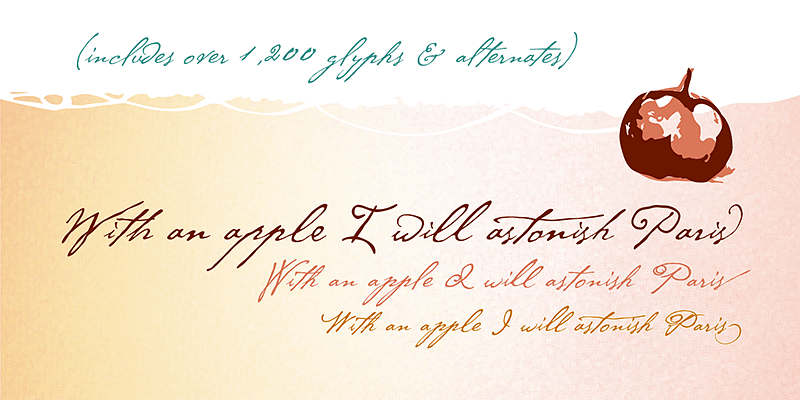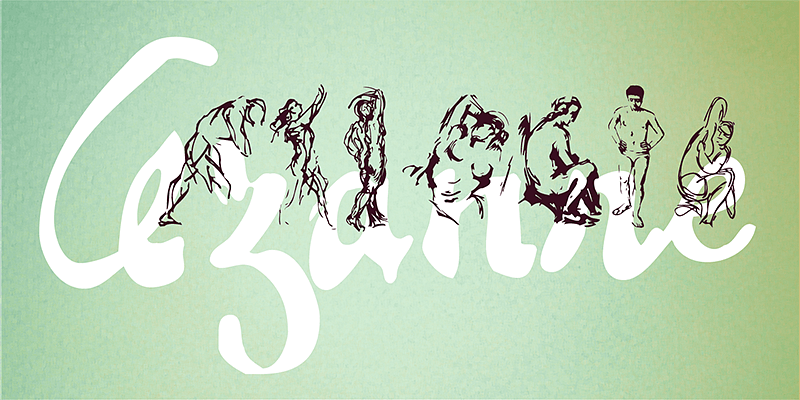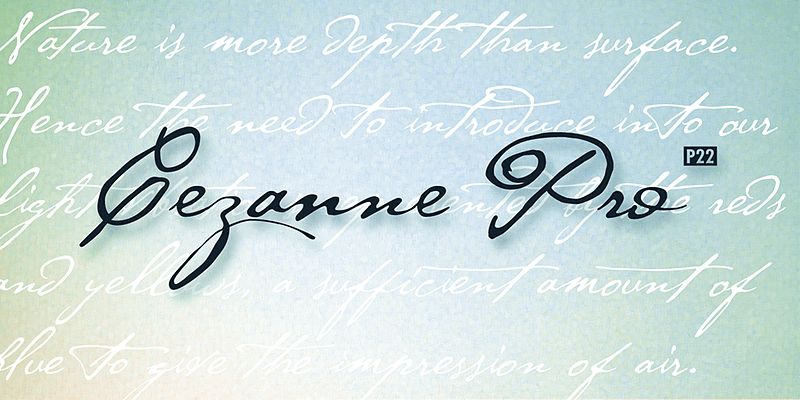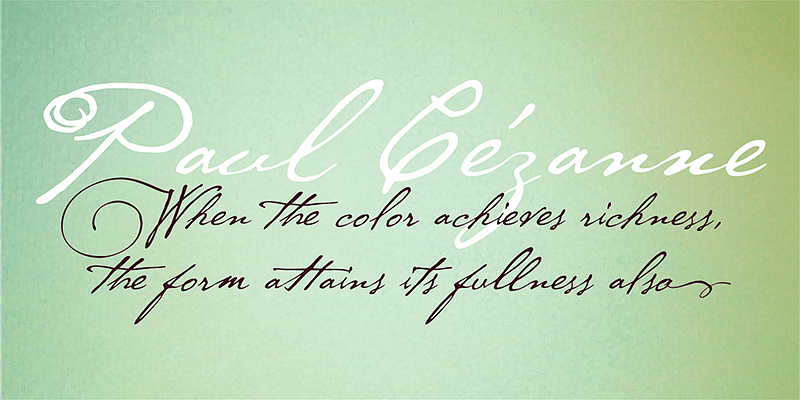
P22 Cezanne font allows you to use a faithful rendition of the Paul Cézanne’s handwriting. The pro version will automatically substitute letter combinations to create a natural handwriting effect.